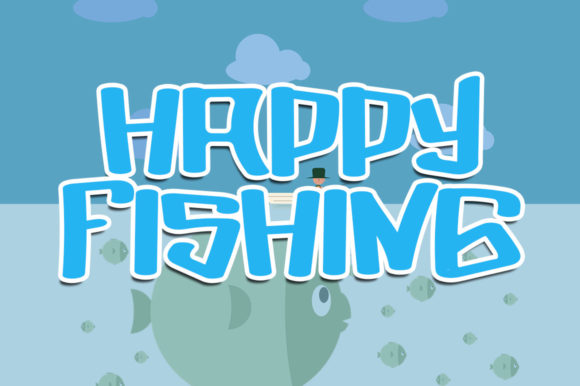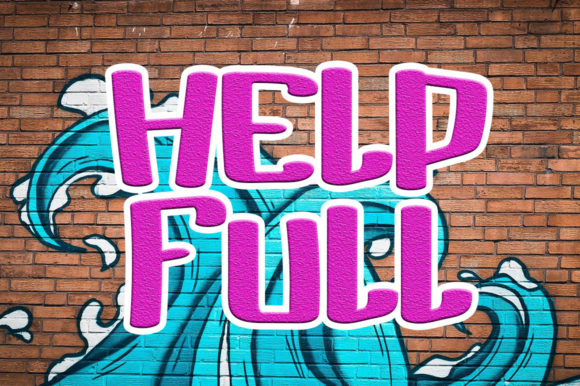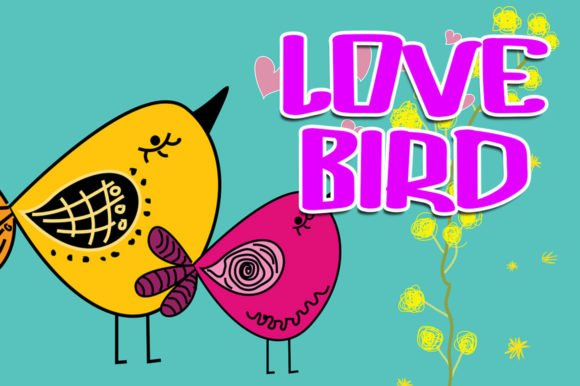
Introducing Chiki Chick Font: The Ultimate Display Font for Creative Projects
Are you a designer, crafty enthusiast, or simply someone who loves to add a touch of personality to their creative projects? Look no further than the Chiki Chick Font! This gorgeous display font is designed to bring playfulness and authenticity to your designs, making it perfect for a wide range of applications.
What is Chiki Chick Font?
Chiki Chick Font is a unique and eye-catching display font that is sure to make your designs stand out. Its playful and authentic style makes it an ideal choice for anyone looking to add a touch of whimsy to their projects. Whether you’re working on a book, game, magazine, social media post, product packaging, or apparel design, Chiki Chick Font is the perfect choice.
Key Features of Chiki Chick Font
- Playful and Authentic Style: Chiki Chick Font embodies a sense of playfulness and authenticity, making it perfect for designs that require a touch of personality.
- Versatile: This font is suitable for a wide range of applications, including books, games, magazines, social media posts, product packaging, apparel designs, and more.
- Display Font: Chiki Chick Font is a display font, making it perfect for headlines, titles, and other prominent text elements.
- Easy to Read: Despite its playful style, Chiki Chick Font is easy to read, making it perfect for designs that require a clear and concise message.
Use Cases for Chiki Chick Font
Chiki Chick Font is a versatile font that can be used in a variety of creative projects. Here are some use cases to get you started:
- Book Covers: Add a touch of playfulness to your book covers with Chiki Chick Font. It’s perfect for fiction, children’s books, and young adult novels.
- Game Design: Use Chiki Chick Font to create eye-catching titles, headings, and dialogue for your game designs.
- Magazines and Newspapers: Add a touch of personality to your magazine or newspaper designs with Chiki Chick Font. It’s perfect for headlines, titles, and section headings.
- Social Media Posts: Use Chiki Chick Font to create eye-catching social media posts that stand out from the crowd.
- Product Packaging: Add a touch of playfulness to your product packaging with Chiki Chick Font. It’s perfect for labels, tags, and other packaging elements.
- Apparel Designs: Use Chiki Chick Font to create eye-catching apparel designs, including t-shirts, hoodies, and more.
Why Choose Chiki Chick Font?
There are many fonts available, but Chiki Chick Font stands out from the rest. Here are some reasons why you should choose Chiki Chick Font for your next project:
- Unique Style: Chiki Chick Font has a unique and eye-catching style that will make your designs stand out.
- High-Quality: Chiki Chick Font is a high-quality font that is designed to look great in any design.
In conclusion, Chiki Chick Font is a gorgeous display font that embodies playfulness and authenticity. Its versatile style makes it perfect for a wide range of creative projects, from books and games to magazines and social media posts. With its unique style, high-quality design, and ease of use, Chiki Chick Font is the perfect choice for designers and crafty enthusiasts alike.